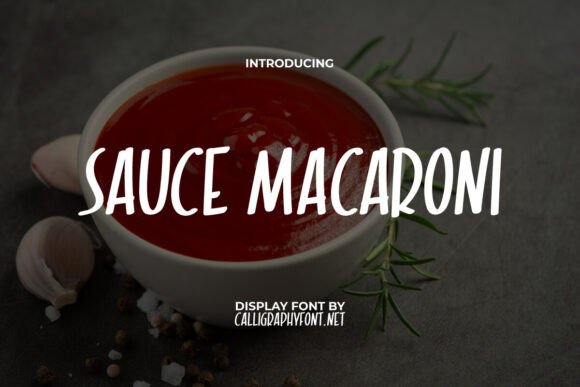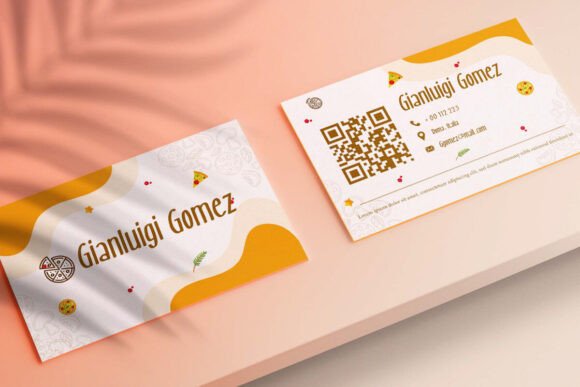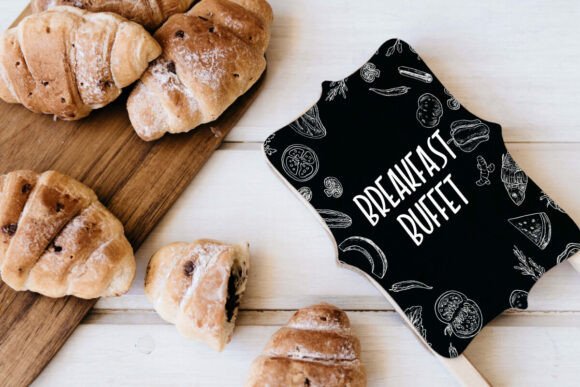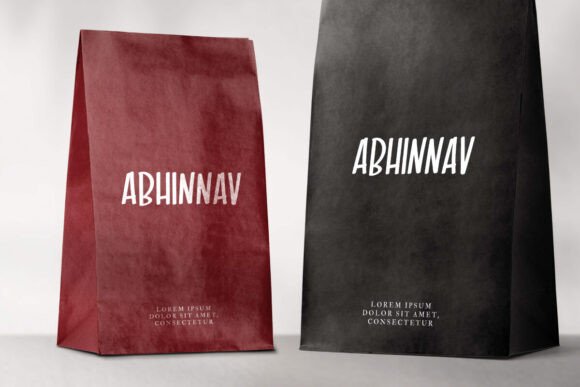
Sauce Macaroni Font
About the Sauce Macaroni Font
The Sauce Macaroni Font offers a perfect balance of form and function for your design needs. Sauce Macaroni Font is a simple, easy to read playful display font. This font has a heigh and unique style so it is suitable for use with other types of fonts. It will be good to complement any project design, such as brand image, brochure, cover, custom design, flyer, label, marketing material, menu board, poster, screen print, signage, stationery, sticker, website page, and many more!
Sauce Macaroni Font can make each of your designs look stylish, so it can be used by various industries, such as accessories, advertising, bakery and pastry, cafe, content creator, event or festival, fashion, food and beverages, graphic design, handicraft, interior design, printing, publishing, etc.